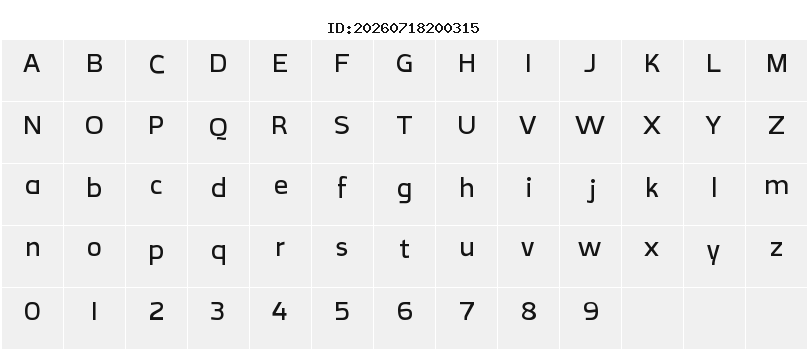
CreativZoo Regular Preview
• Font Name: CreativZoo Regular
• Full Font Name: CreativZoo Regular
• PostScript Name: CreativZooRegular
About CreativZoo Regular.ttf
CreativZoo Regular.ttf is a modern, elegant sans-serif font designed for ultimate readability and visual harmony. Perfect for branding, headlines, web design, and print materials.